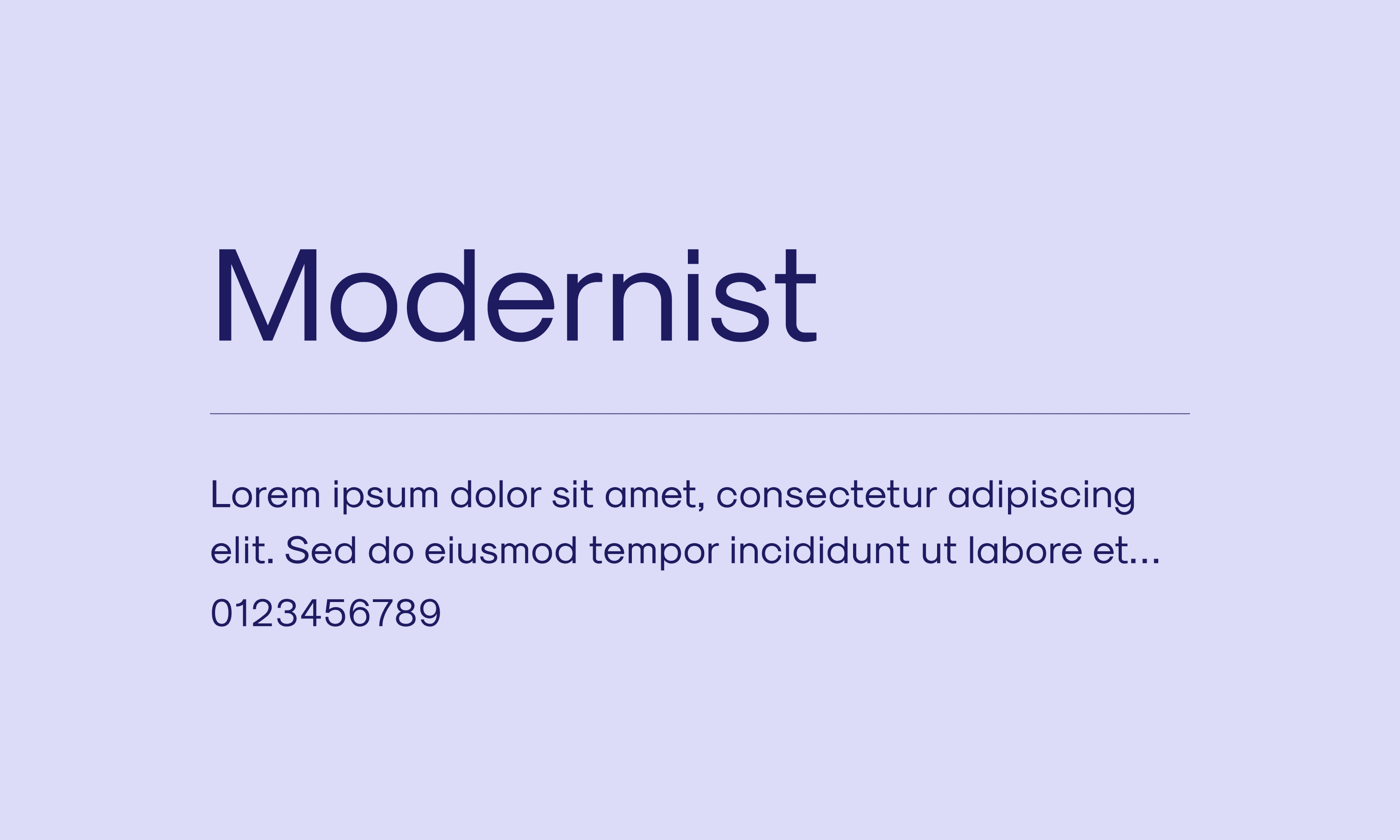
Sk-Modernist is a minimalist and clean font that avoids complex forms. The purpose of this font is to blend modern Grotesks (such as Helvetica) with simpler geometric styles (such as Avant Garde). Designed for the digital age, each letter is optically adjusted using a mathematical system rather than traditional printing methods. This approach results in a font that displays beautifully in digital media.